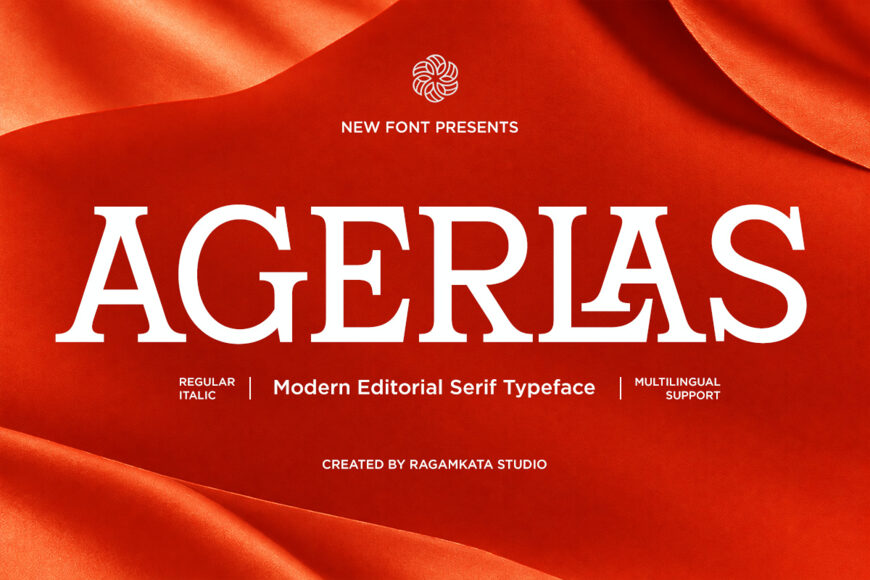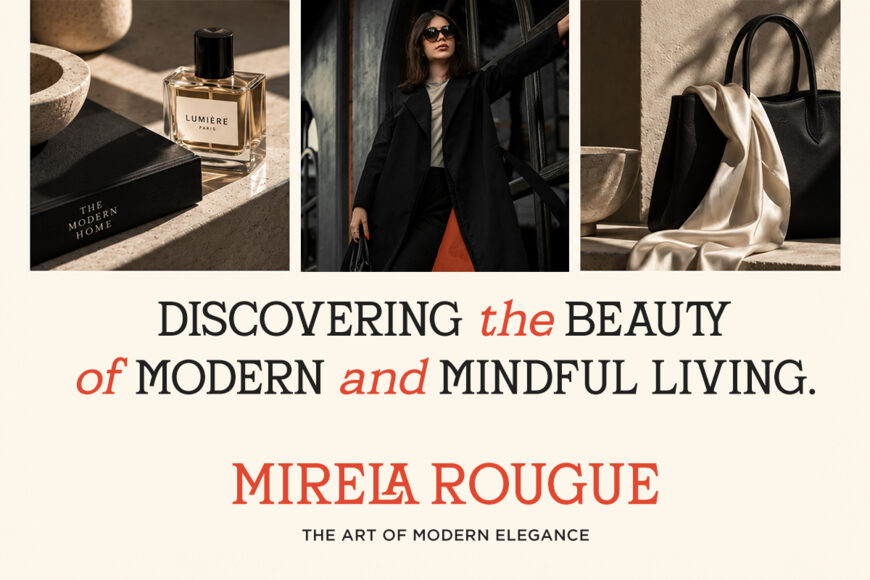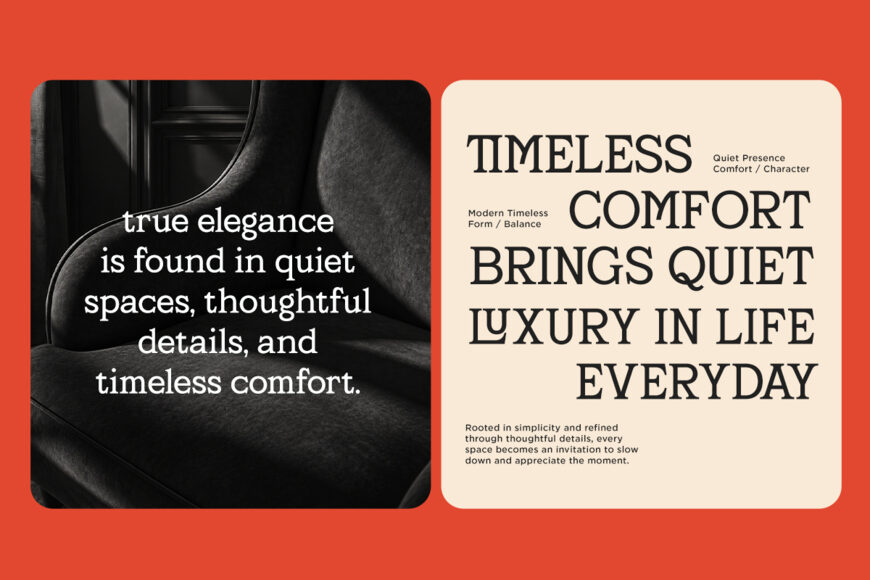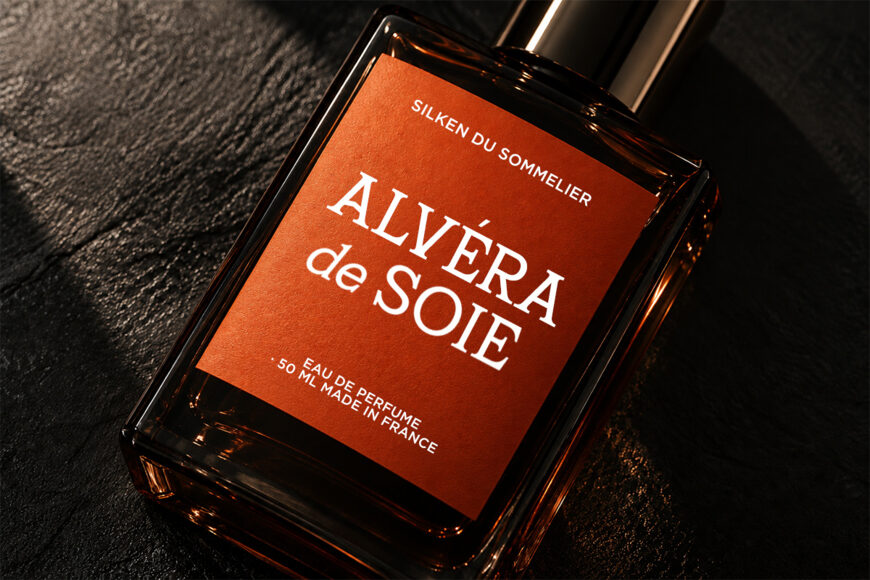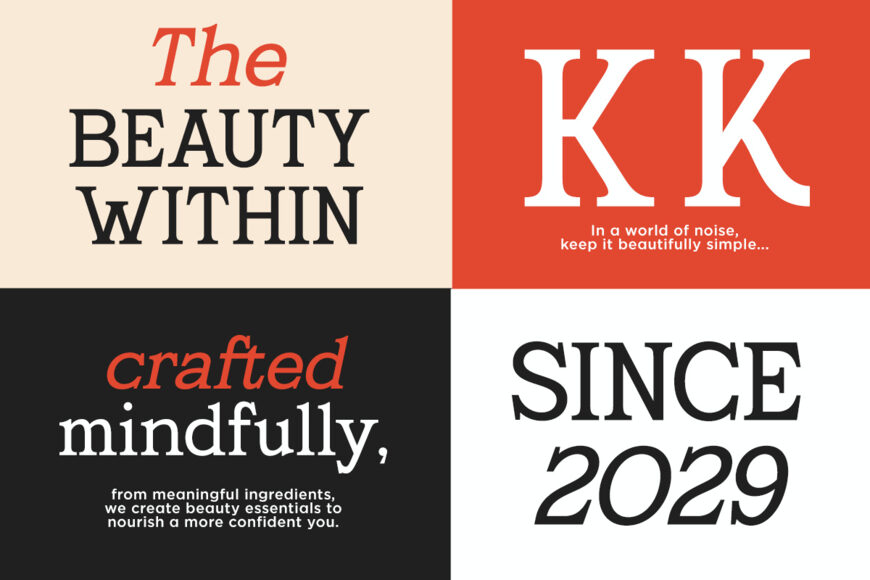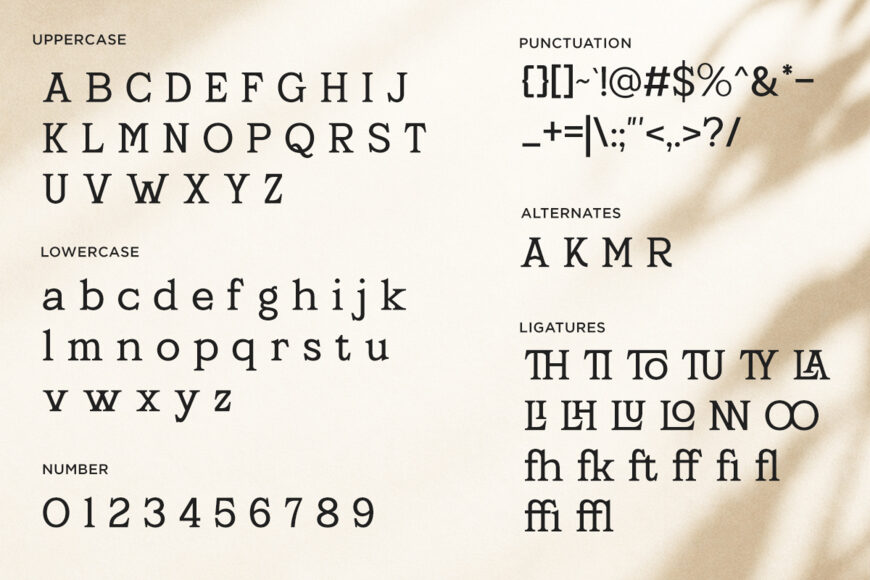
Agerlas Font
Agerlas is a refined modern serif font designed to bring elegance, sophistication, and editorial character to contemporary designs. Featuring high contrast letterforms, graceful proportions, and distinctive serif details, Agerlas creates a luxurious visual presence while maintaining a clean and versatile appearance.
Perfect for fashion magazines, beauty branding, luxury logos, editorial layouts, perfume packaging, cosmetics, lifestyle brands, advertising, posters, invitations, and premium product designs. Its elegant character makes Agerlas especially suitable for headlines, brand names, magazine covers, and sophisticated visual identities.